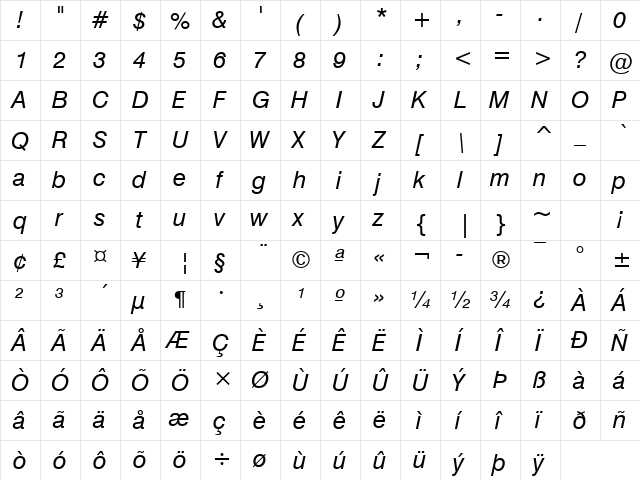
Swis721 Win95BT Italic
Design Context for Swis721 Win95BT Typeface
Swis721 Win95BT is a composed and adaptable typeface that performs quietly and consistently across a wide range of design contexts. The dynamic lean of this cut emphasises speed and emphasis in any layout.
Pro Tip: Try Swis721 Win95BT for annotation and caption copy alongside an upright companion — the contrast in angle creates a dynamic but ordered typographic system.